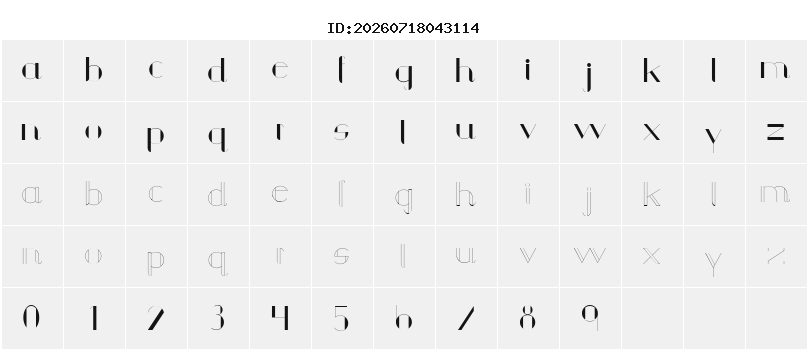
Chula Preview
• Font Name: Chula
• Font ID: GabrielaRoh: Chula: 2013
• Full Font Name: Chula
• PostScript Name: Chula
• Designer: Gabriela Roh
• Manufacturer: Gabriela Roh
About Chula.ttf
Chula.ttf is a modern, elegant sans-serif font designed for ultimate readability and visual harmony. Perfect for branding, headlines, web design, and print materials.